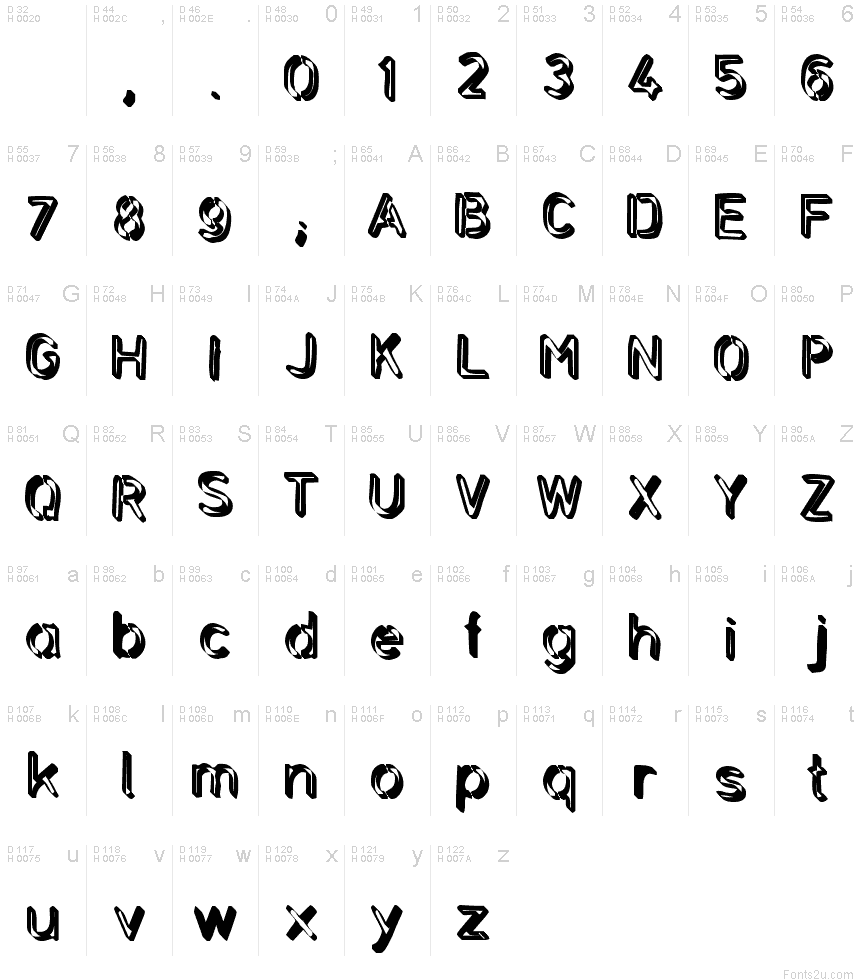
Backcab Extra Crispy
Backcab Extra Crispy font by Jeni Pleskow is a free outlined decorative display typeface that looks like letters cut from thick, glossy vinyl and twisted into trippy loops. Each character in the Backcab family feels slightly warped and melted, with chunky strokes and narrow white slits that create a restless, vibrating texture. It has a loud, 90s-psychedelic attitude that instantly pulls focus and turns even a short word into a graphic object.
Using Backcab Extra Crispy, headlines feel more like logo marks than plain text, so it shines on gig posters, zines, album covers, streetwear graphics, experimental logos, and retro party flyers. This free font works best at big sizes where its inky curves and gaps stay crisp. Pair it with a clean, neutral sans serif for body copy to let Backcab handle the noise while the supporting text stays calm and readable.